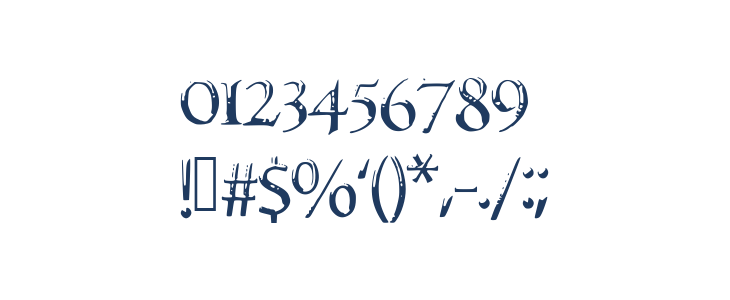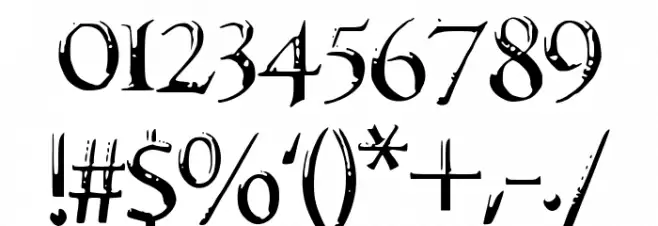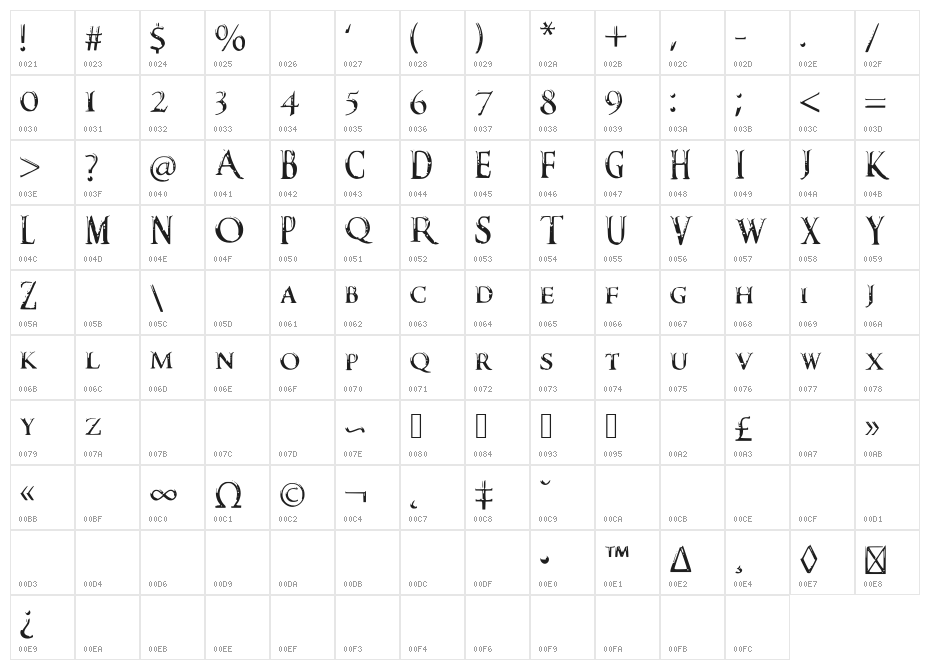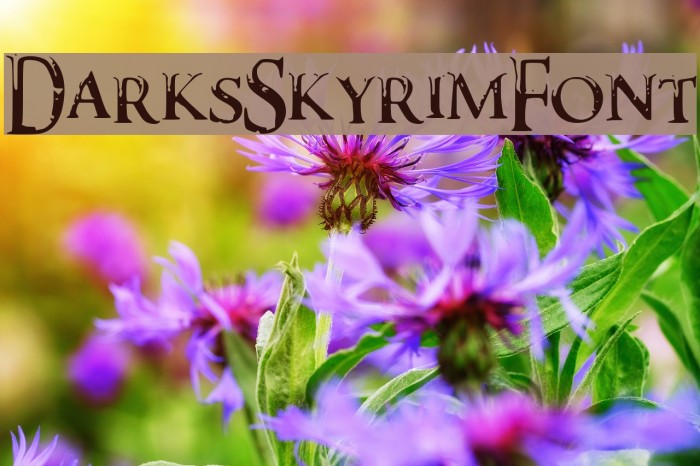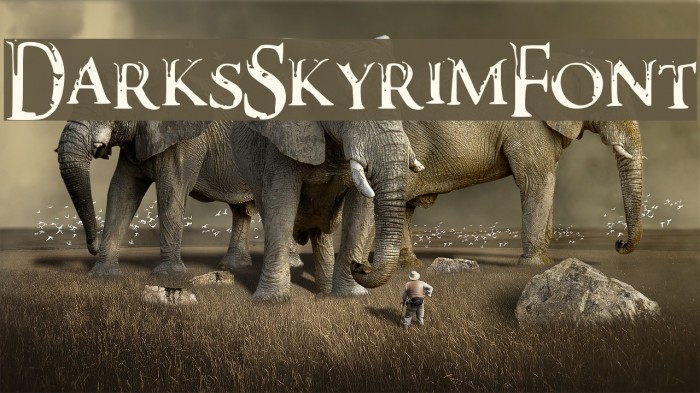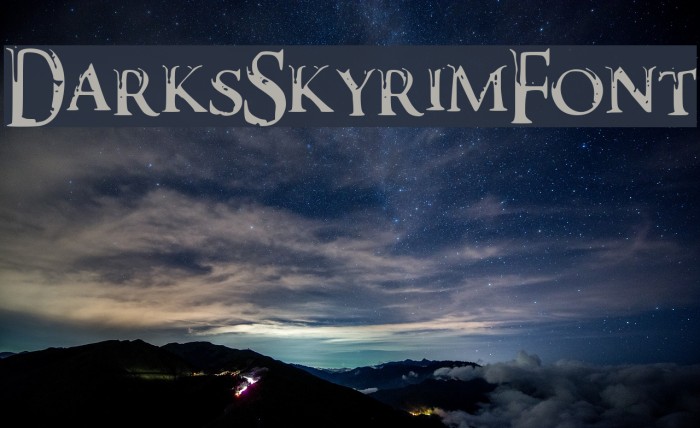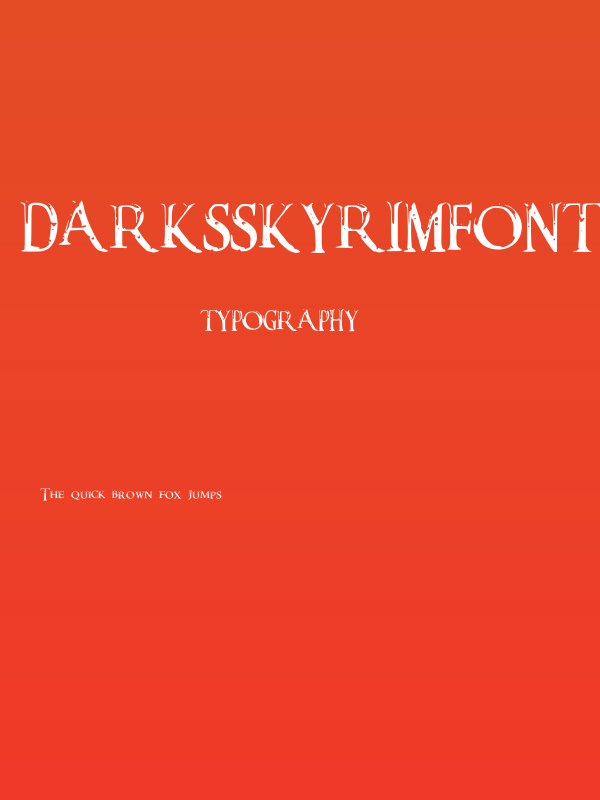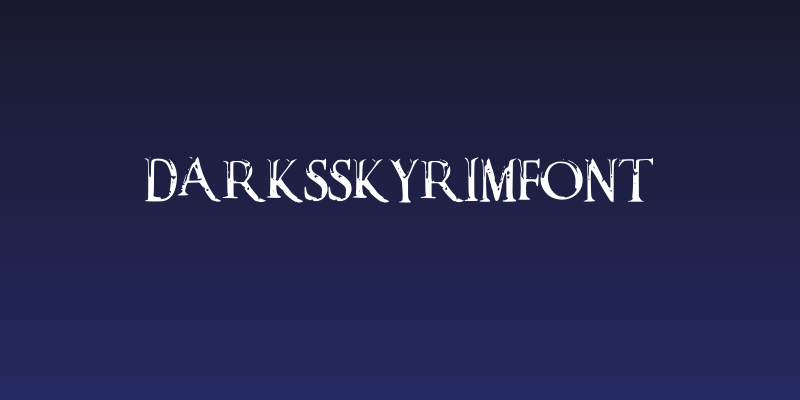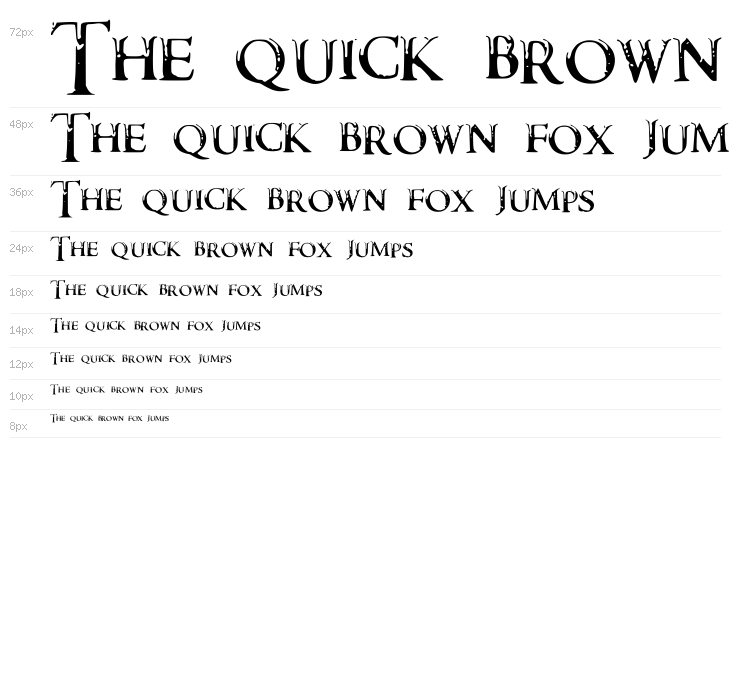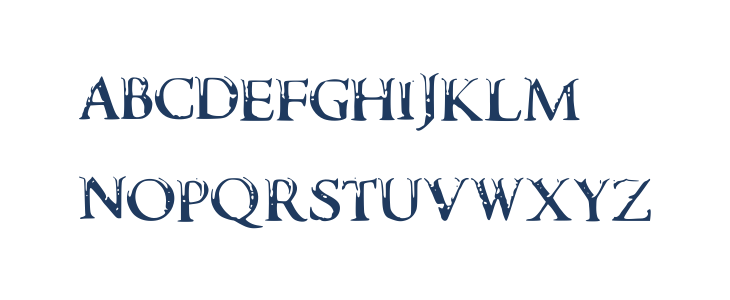
DarksSkyrimFont Font
DarksSkyrimFont Description
This font features a rugged, medieval-inspired design with a distressed texture that gives it an aged, weathered appearance. The characters are bold and prominent, with sharp serifs and a slightly uneven baseline, adding to its rustic charm. The uppercase and lowercase letters maintain a consistent style, with the numerals and special characters following suit. This font evokes a sense of fantasy and adventure, reminiscent of ancient scripts and mythical tales.
| Proposed Projects | Ideal for fantasy-themed projects, video game titles, book covers, and posters that require a touch of medieval or mythical flair. |